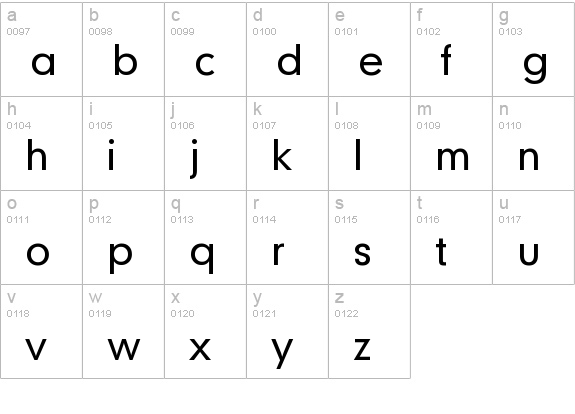
Shankbink Font Details
Shankbink font is a stunning display typeface that will add a touch of elegance and sophistication to any design project. This font is perfect for headlines, logos, posters, and more. With its bold and unique letterforms, Shankbink will make your designs stand out from the crowd. One of the best things about Shankbink font is that it is free! That's right, you can download this amazing font for free at FontsMarket.com. Whether you are a professional designer or just starting out, you can enjoy the beauty and versatility of Shankbink without spending a dime. Not only is Shankbink font free, but it is also incredibly easy to use. Its clean and legible letterforms make it a breeze to read, ensuring that your message is communicated clearly and effectively. Whether you are creating a website, designing a print ad, or working on a branding project, Shankbink font will help you achieve professional results. The versatility of Shankbink font is truly remarkable. Its sleek and modern design pairs well with a wide range of design styles and themes. Whether you are going for a minimalist look or a more ornate and decorative aesthetic, Shankbink font will adapt beautifully to suit your needs. In addition to its aesthetic appeal, Shankbink font also offers a wide range of glyphs and characters, making it suitable for multilingual projects. No matter what language you are working with, Shankbink font has got you covered. So why wait? Download Shankbink font for free today at FontsMarket.com and start adding a touch of elegance and style to your designs. With its stunning design, ease of use, and multilingual support, Shankbink font is the perfect choice for any design project.